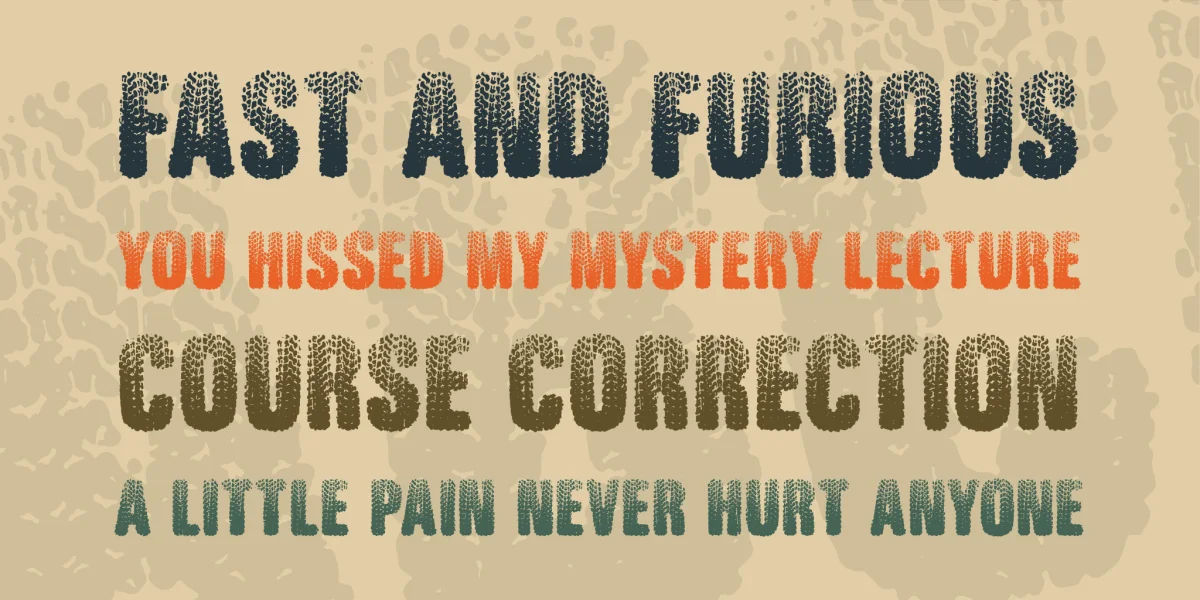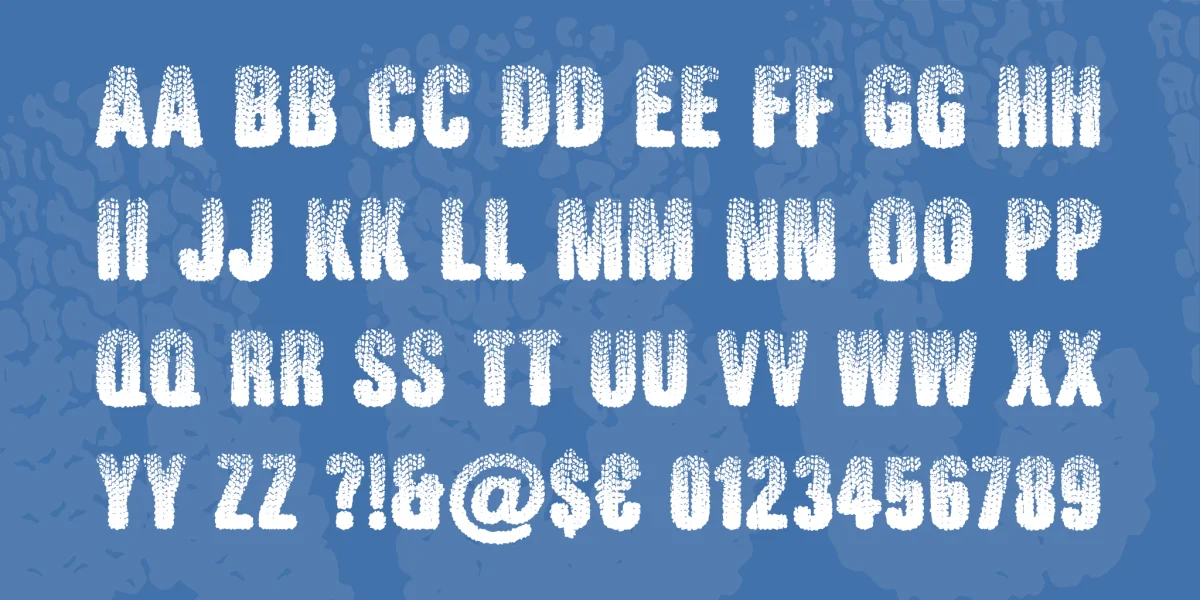
RUGGED RIDE is a muddy, weekend-in-the-high-country sort of font, a tough and dirty stressed poster design mangled through the filter of off-road tire treads. Unlike most of my stressed poster designs, this one required a bit of preliminary research ... Tire treads are pretty serious stuff to those who make (and use) tires professionally, and many *tread*marks are also *trade*marks (and valued patents) of their inventors and manufacturers ... so rather than trod on another's tread, I had to trot out my very own. To give it an authentic feel (I doubt it would pass engineering muster) I researched mud-tires, all-terrain tires, and tractor tires, because I knew I'd be going for a wet, mud-track look (I also glanced at rock-riding tires and others, but more in an ambling haze of wonderment than as research, because before I began this project I was blissfully unaware of how many types exist).
RUGGED RIDE is a full-U.S.-keyboard all-caps font, with two distinct sets of caps (one mapped to the lowercase glyphs) to avoid the niggling annoyance of two identical stressed letters next to each other. The font's title shows this off pretty well, since it repeats R, G, E and D! RUGgED rIde, indeed. The font sports a few off-the-beaten-trail extras, including a clean (unstressed, unsoftened) version of the font's own tread design, mapped as the generic currency glyph (if you're working in an application that supports OpenType ligatures, you can also summon it with three backslashes in a row). Unlike most of my fonts, RUGGED RIDE includes a multiplication sign (×), because a trail-riding tire font (tyre font in some countries!) that can't spell 4×4 is just broken. Use this one BIG ... regard 72 points as the bare minimum, not the end of the pull-down list ...